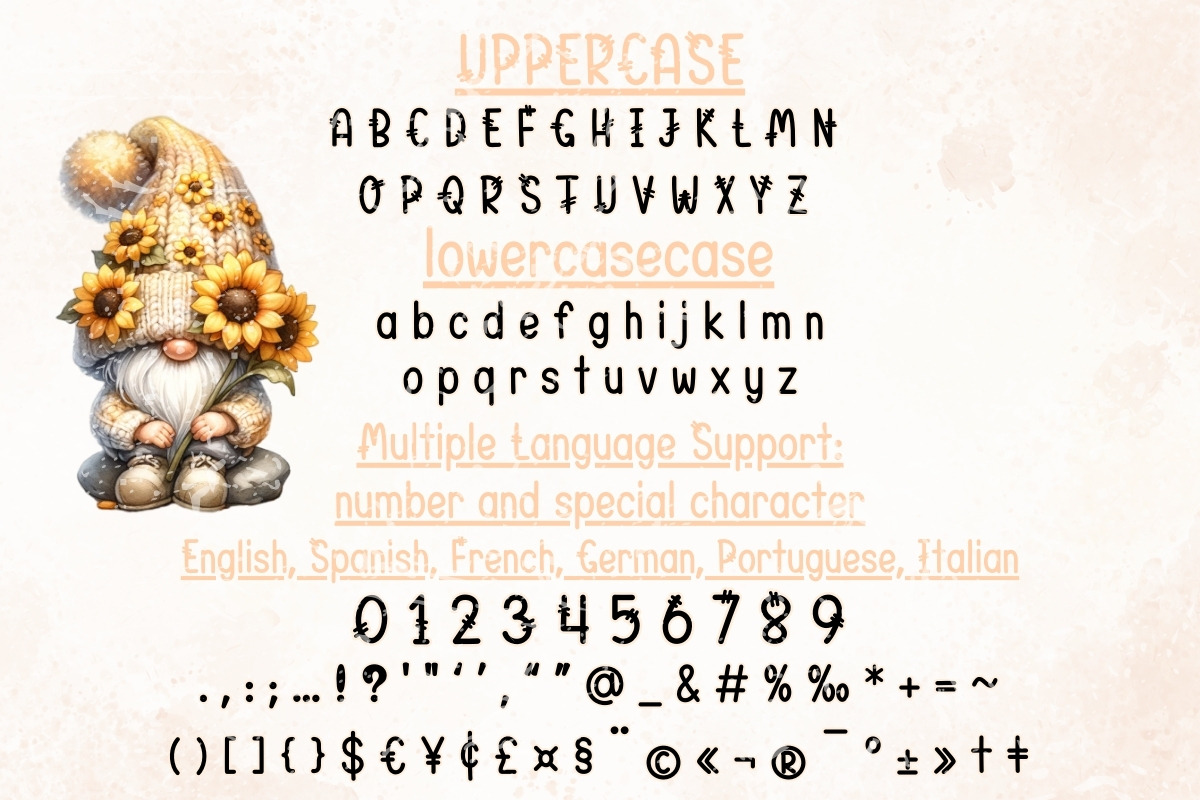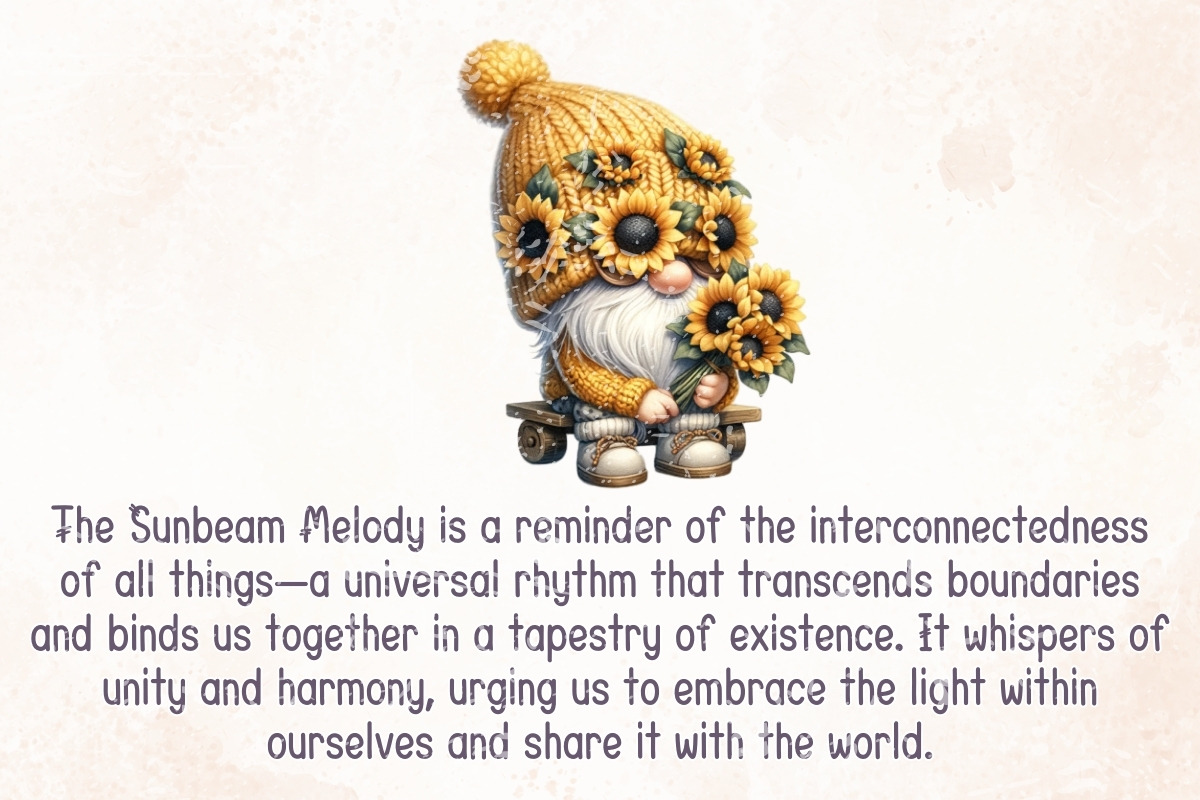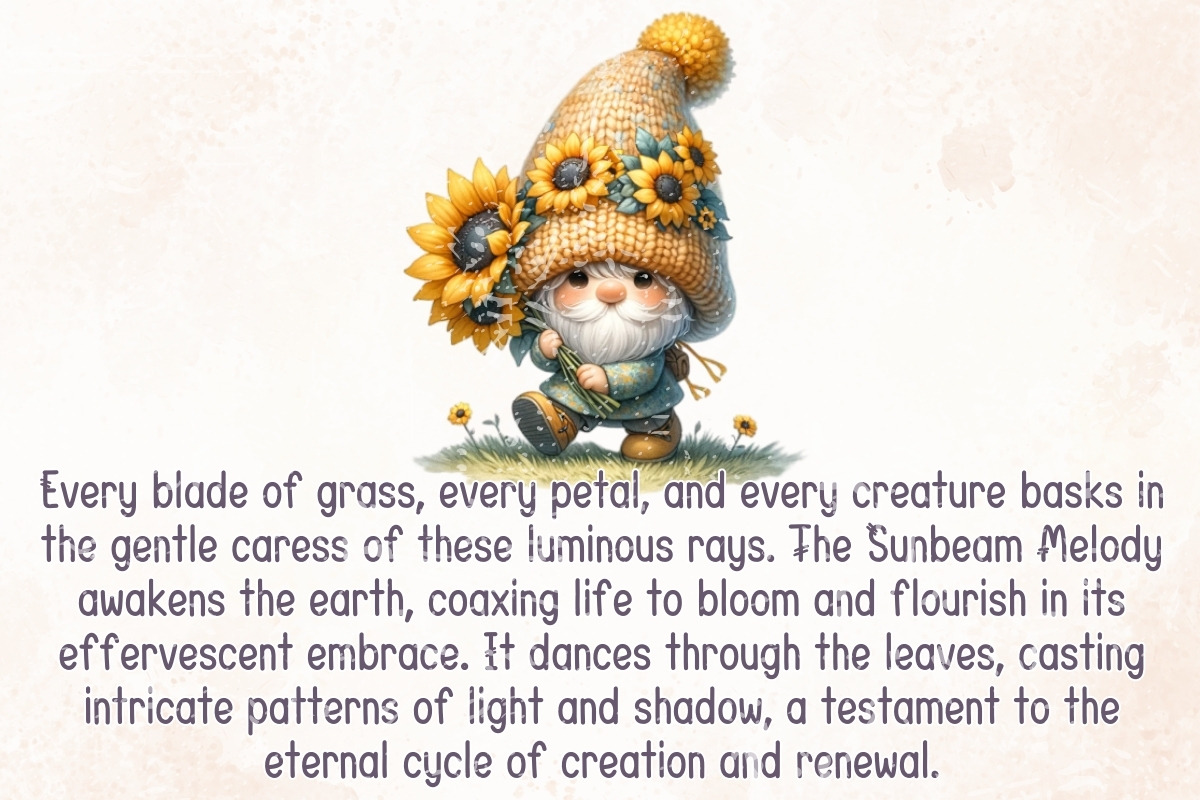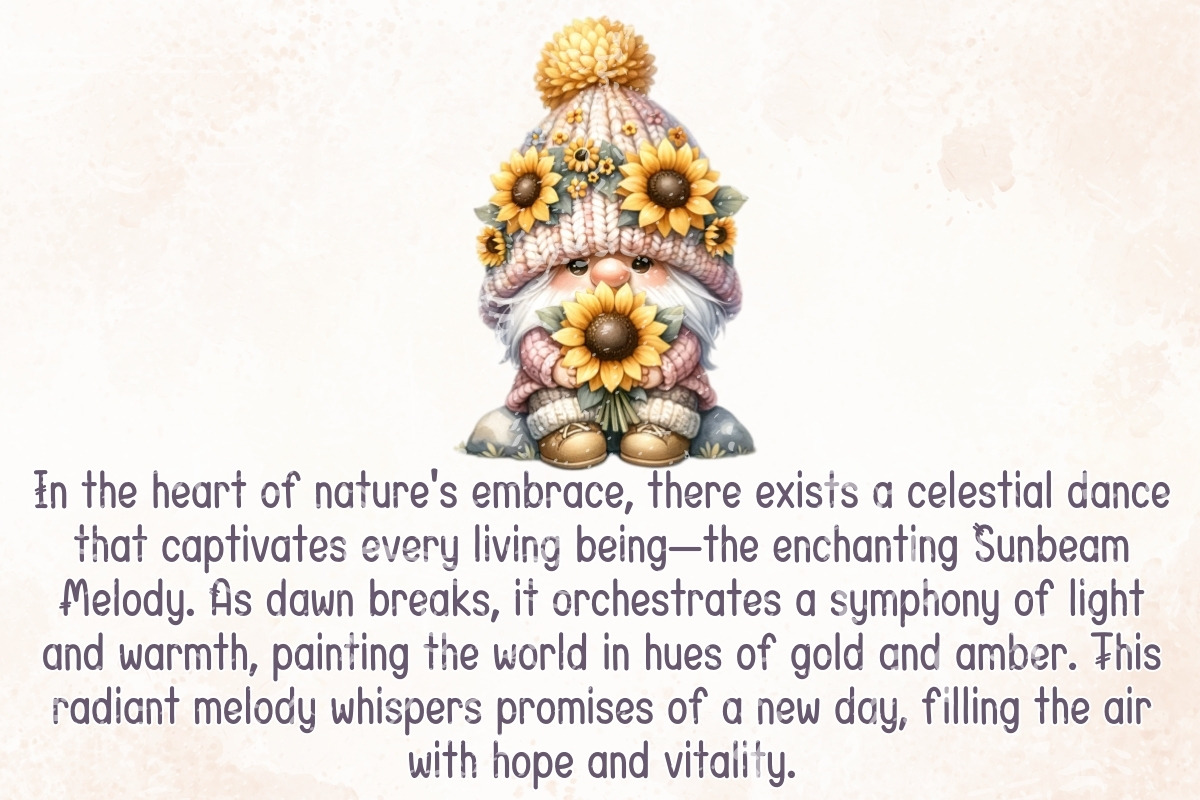
Sunbeam Melody - Handwriting
Introducing "Sunbeam Melody" - a delightful handwritten font that exudes charm and elegance. With its whimsical curves and playful strokes, this font captures the essence of innocence and joy, making it perfect for adding a touch of warmth and personality to your projects.